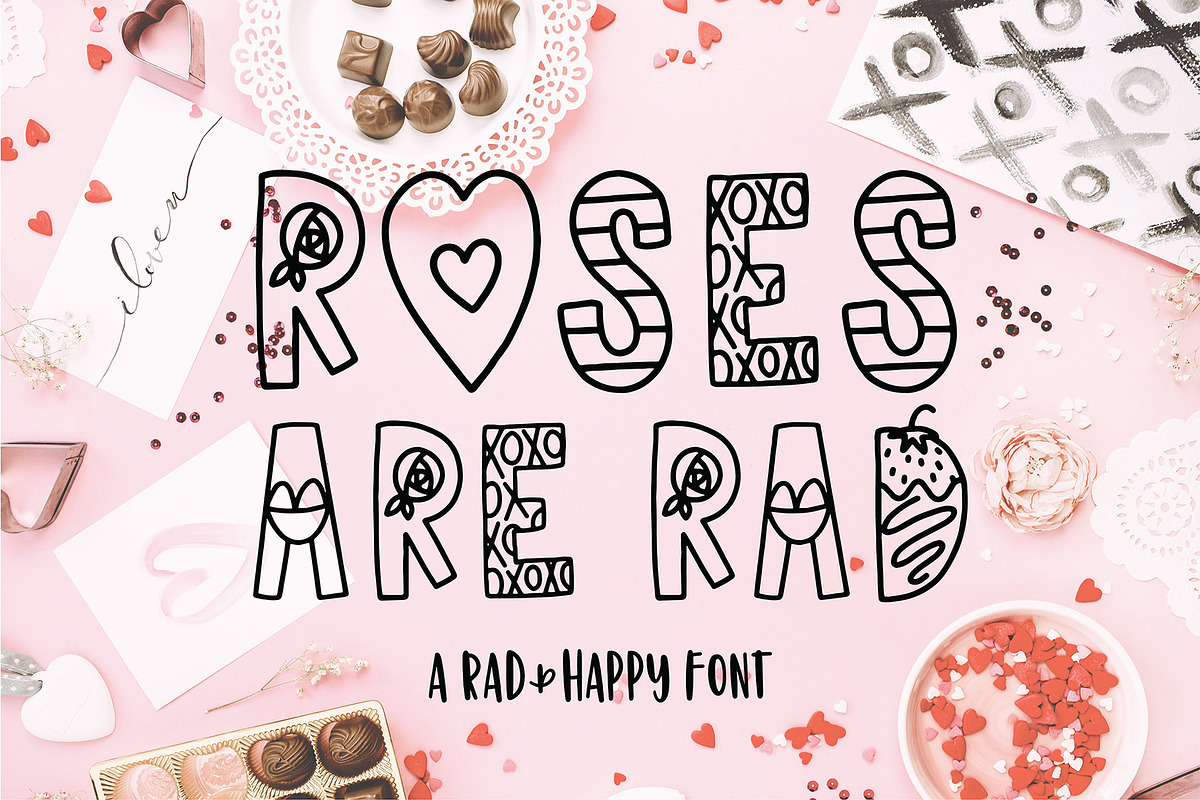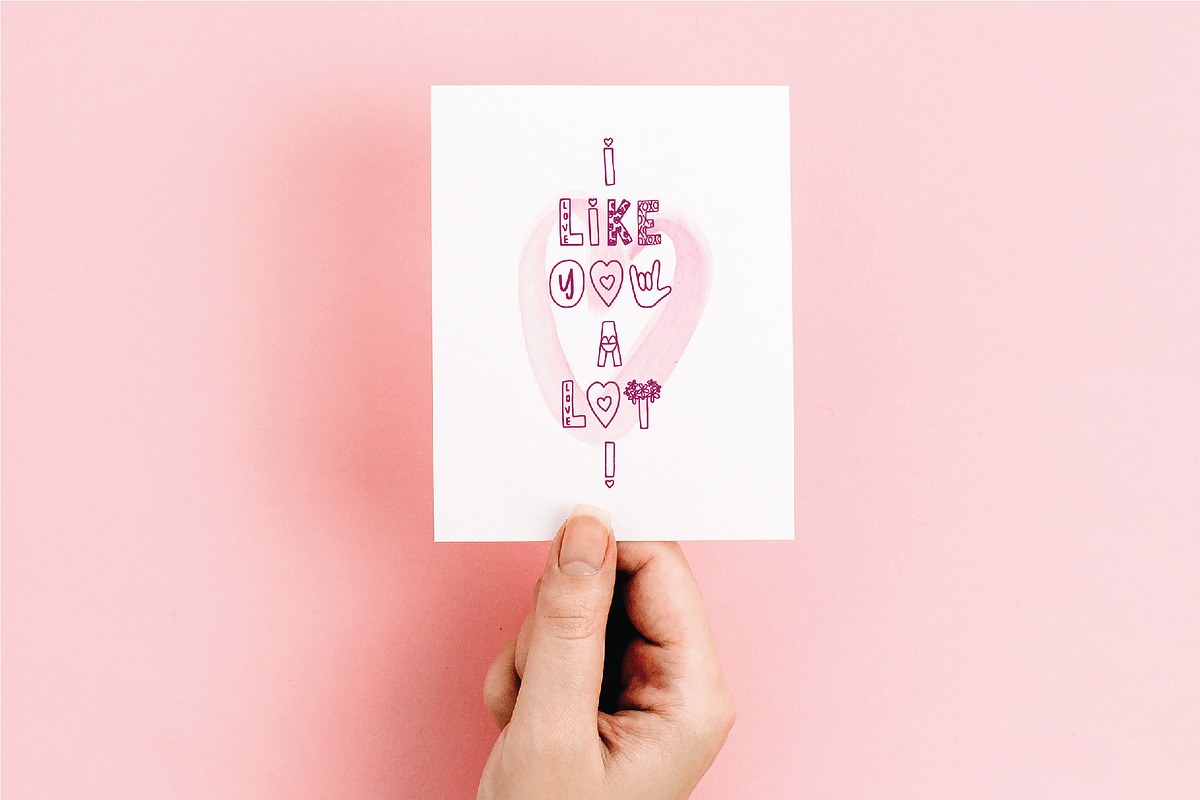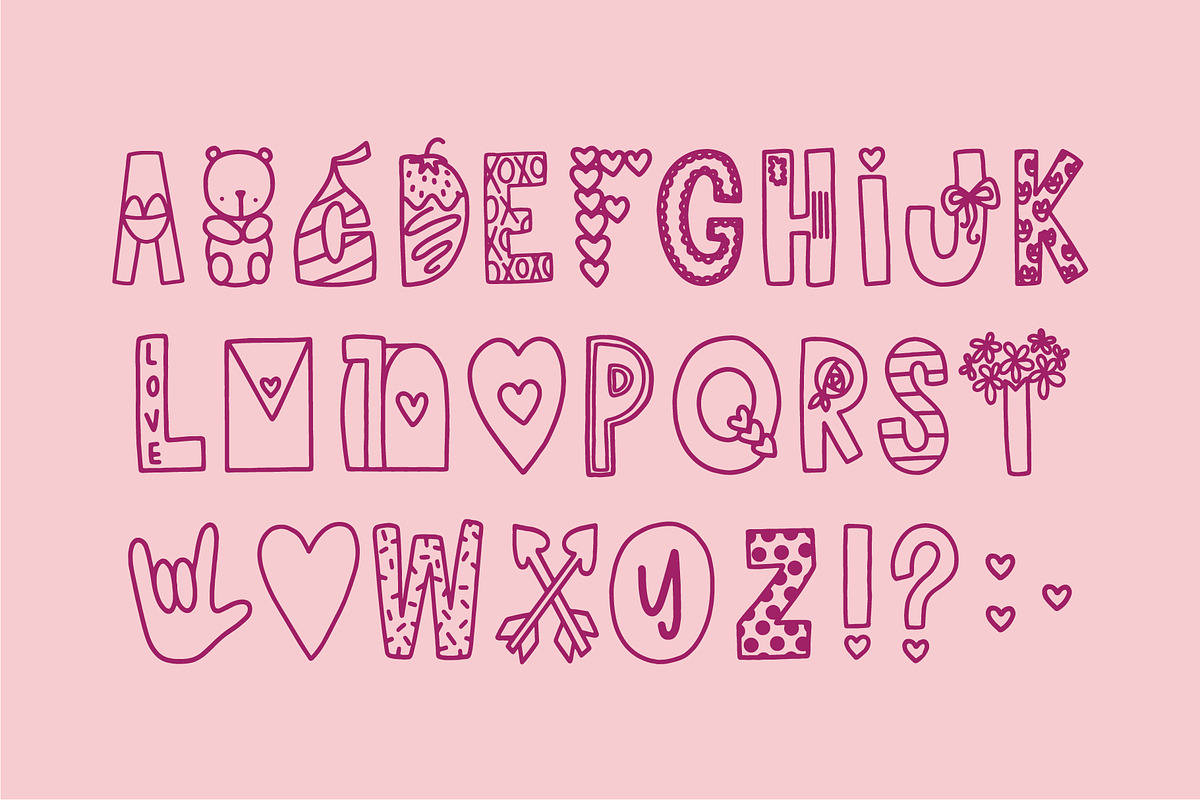
Roses Are Rad Font
A hand drawn font all centered around love full of cute doodles and symbols shaped as letters.
Roses Are Rad Font by Rad And Happy fits naturally into Branding, posters, packaging, typography.